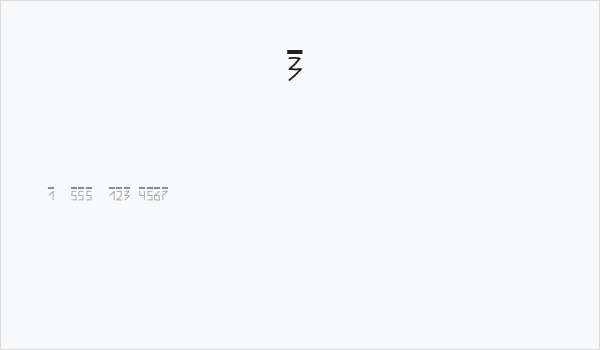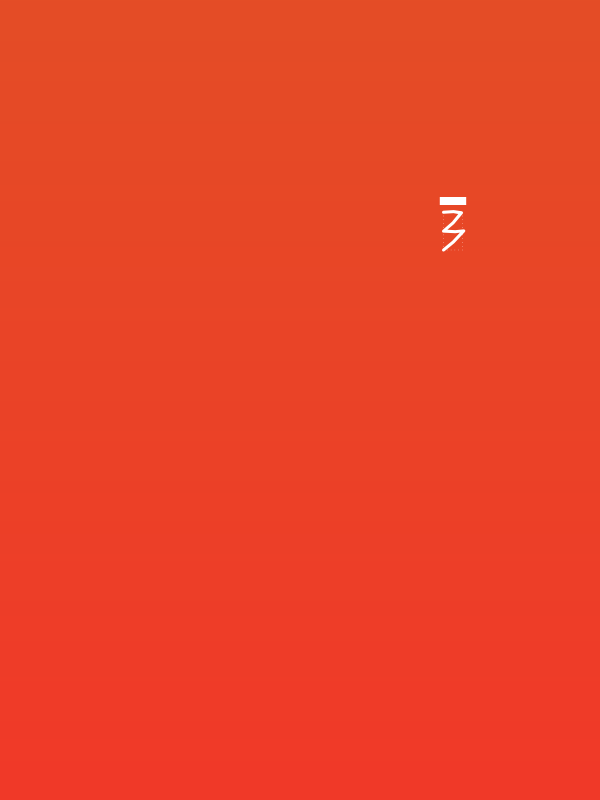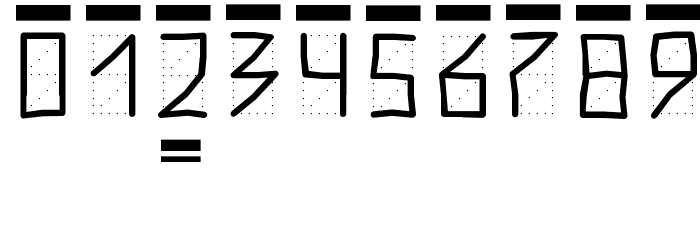
PostIndexHand3 Bold Font
This font features a bold, handwritten style with a playful and informal appearance. The characters are slightly slanted, giving them a dynamic and energetic feel. The strokes are thick and consistent, providing a strong visual impact. The numbers are uniquely styled with a casual, almost doodle-like quality, making them stand out. The overall design is reminiscent of hand-drawn lettering, perfect for projects that require a personal touch. The font's boldness ensures readability while maintaining an artistic flair.
| Proposed Projects | Ideal for greeting cards, children's books, casual posters, and creative branding. |